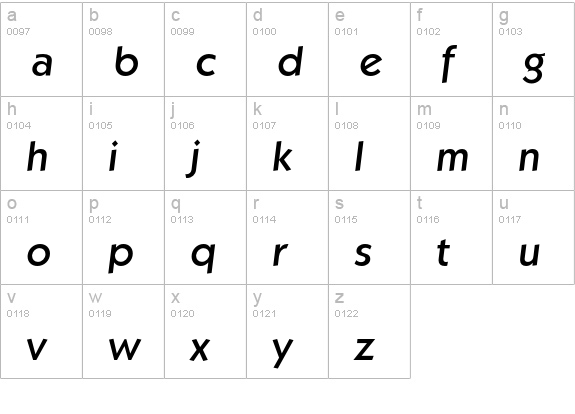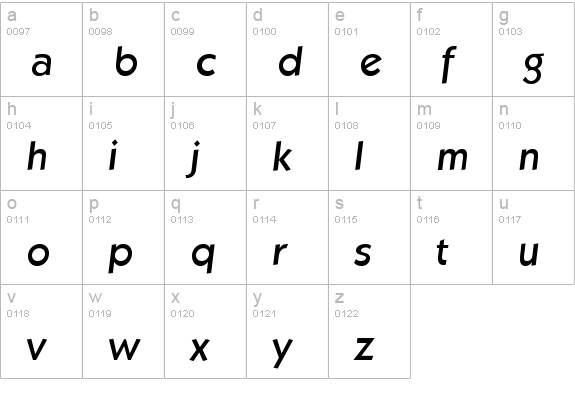
Koblenz-MediumIta Font Details
Koblenz-MediumIta font is a stylish and versatile typeface that strikes the perfect balance between elegance and readability. With its sleek italic design and medium weight, this font is ideal for a wide range of design projects, from editorial layouts to branding materials. The Koblenz-MediumIta font features clean lines and subtle curves that add a touch of sophistication to any text. The best part? Koblenz-MediumIta font is completely free to download at FontsMarket.com. Whether you're a professional designer looking for a new addition to your font library or a casual user in need of a fresh look for your projects, this font is sure to impress. Don't miss out on the opportunity to enhance your designs with the stunning Koblenz-MediumIta font today!